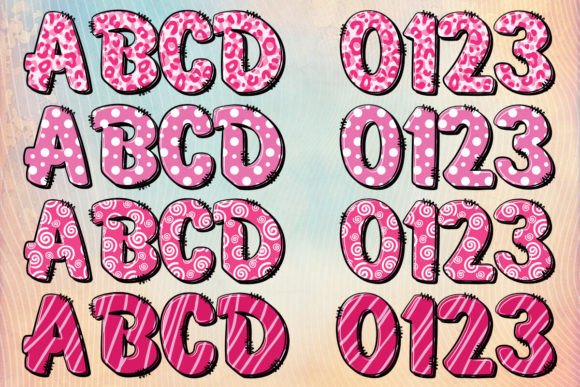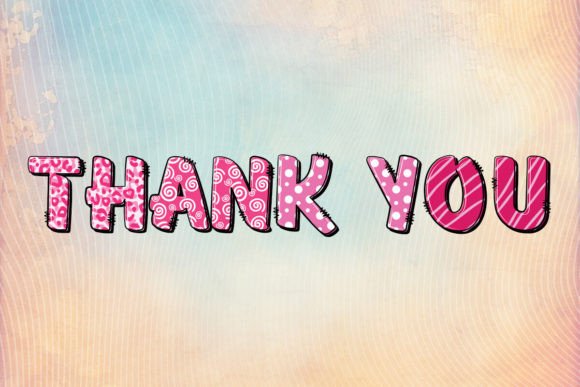
Embracing Nostalgia and Awareness with the Breast Cancer Font
As a designer, I’ve had my fair share of moments where finding the perfect font felt like searching for a needle in a haystack. I recall working on a project for a breast cancer awareness campaign, determined to find a typeface that would not only resonate with the audience but also convey the significance of the cause. That’s when I stumbled upon the Breast Cancer Font – a retro, vintage-inspired font that immediately caught my attention with its alluring shade of pink.
A Font that Makes a Statement
The Breast Cancer Font is more than just a typeface; it’s a statement. Its pink hue is not just visually appealing but also symbolizes the commitment to promoting breast cancer awareness. By using this font, designers and crafters can contribute to making a stride towards opening a dialogue about this significant topic. Whether you’re crafting a project, designing an invitation, or developing a branding campaign, this font lends a powerful voice.
Honest Review: The Good and the Quirks
Here’s what I love about the Breast Cancer Font:
- ✨ Retro vibe: The font’s vintage inspiration adds a nostalgic touch to any project.
- 💕 Meaningful cause: Using this font supports breast cancer awareness, making your design more impactful.
And here are some quirks to consider:
The Inspiration Behind the Breast Cancer Font
The Breast Cancer Font was created with the intention of combining aesthetics with advocacy. The designer aimed to craft a font that not only looks appealing but also contributes to a significant cause. The result is a typeface that embodies both nostalgia and awareness, making it a powerful tool for designers and crafters.
Q: What makes the Breast Cancer Font unique?
A: The Breast Cancer Font is unique due to its retro, vintage-inspired design and its association with breast cancer awareness. Its pink hue symbolizes support for the cause.